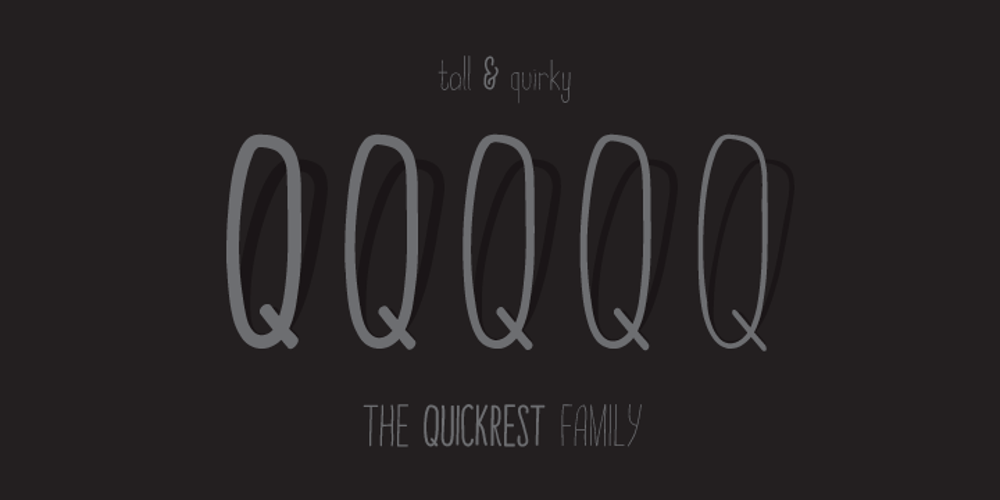
Quick Rest
Quick Rest font
Quick Rest Font Family was designed by Adam Greasley and published by wearecolt. Quick Rest contains 9 styles and family package options. Quickrest is a tall & quirky type with slight irregularities, Quickrest does not do conformity – each character is entirely individual. A fun looking family with its heart set in the handmade / crafty scene. The Quickrest family features five weights and slanted versions.